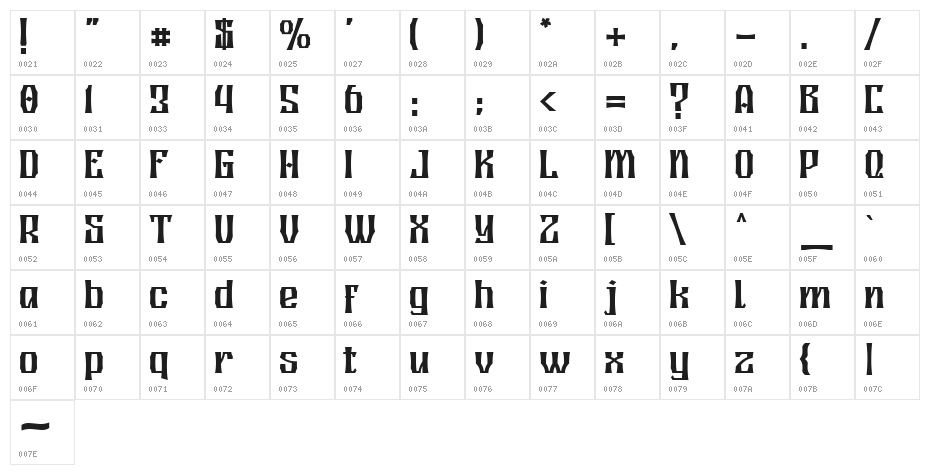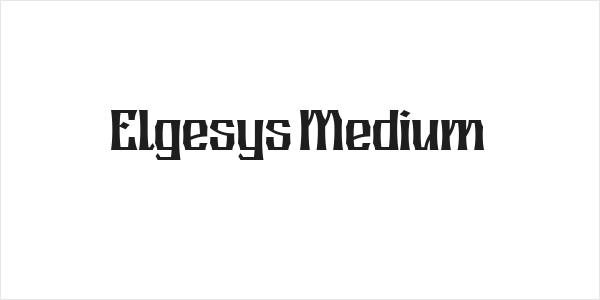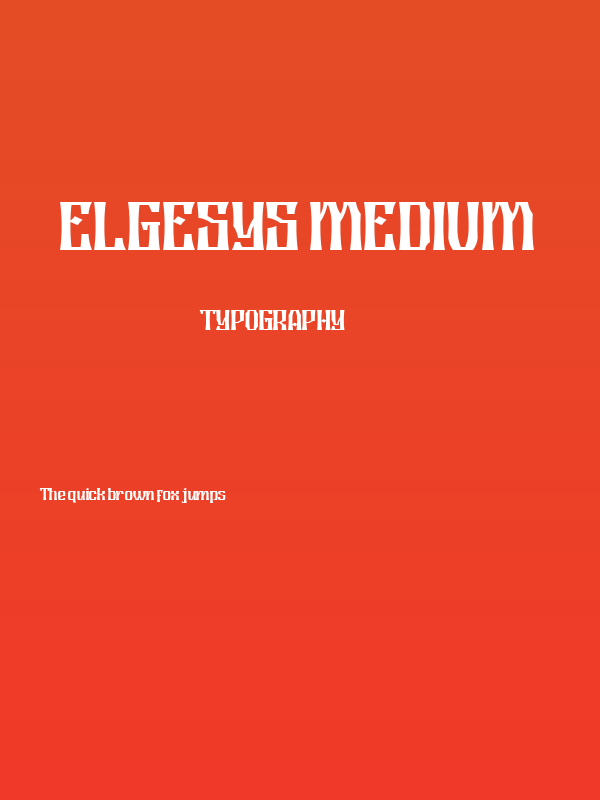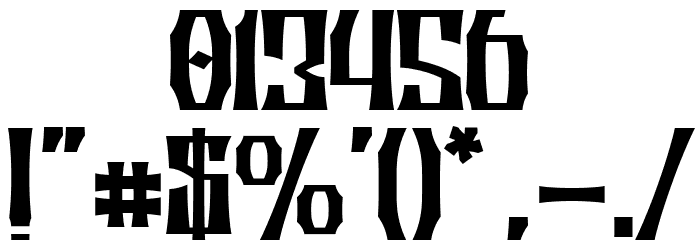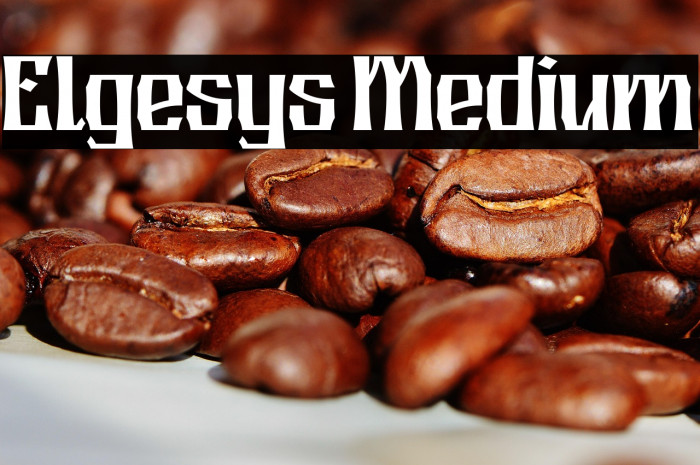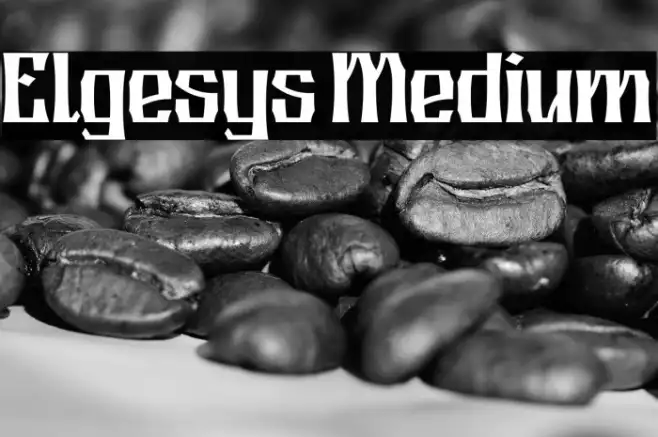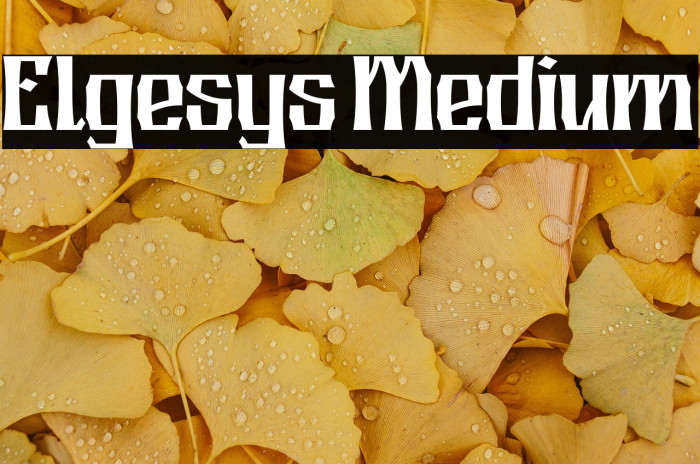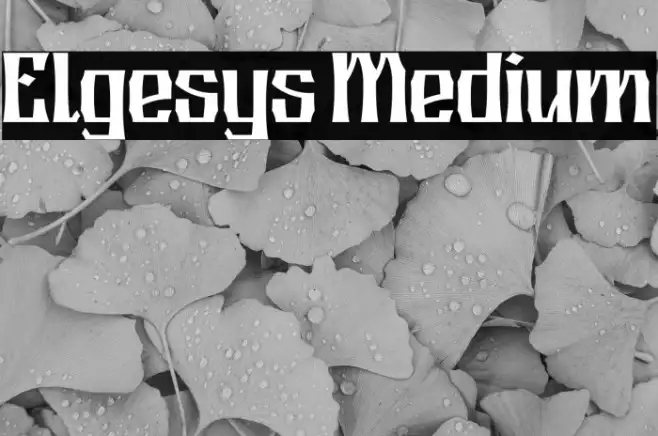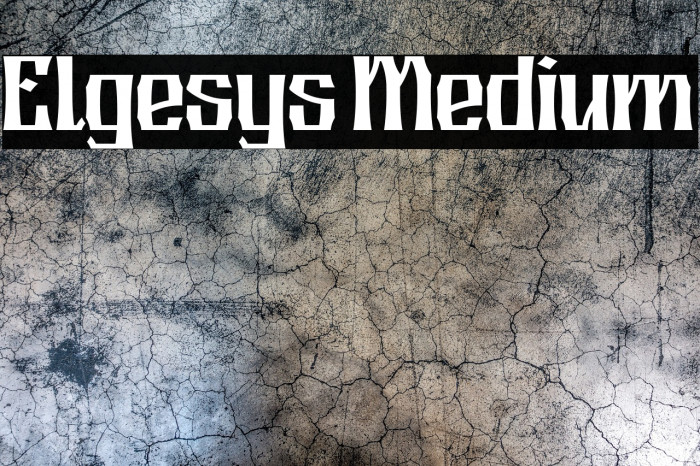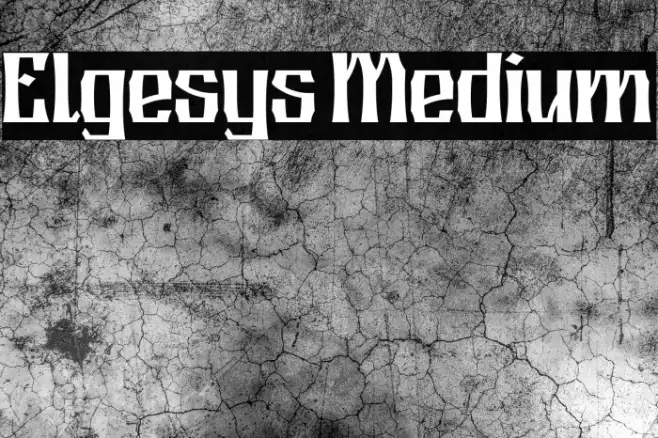
Elgesys Medium Font
Elgesys Medium Description
This font features a bold and angular design, characterized by sharp edges and a geometric structure. The uppercase letters are particularly striking, with a strong presence and a unique style that combines elements of both modern and vintage aesthetics. The lowercase letters maintain the angular theme, offering a cohesive look throughout the typeface. Numbers and special characters are designed with the same boldness, ensuring consistency across all text elements. The font's distinct style makes it suitable for eye-catching designs where a strong visual impact is desired.
| Overall Style | Modern, Vintage |
| Proposed Projects | Ideal for branding, posters, album covers, and any project requiring a bold, impactful typeface. |